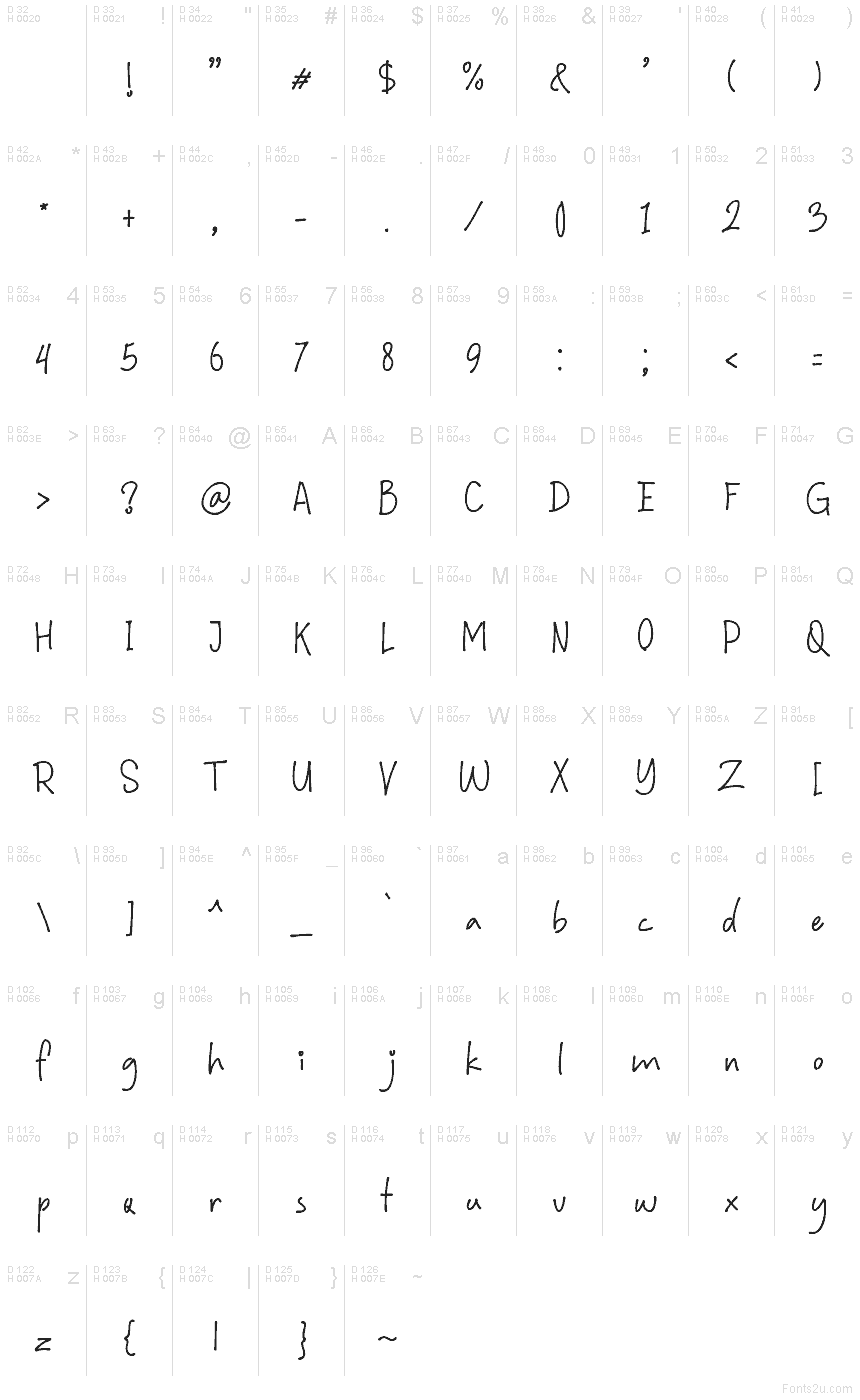
Wedding Moment font by Fontherapy is a free handwritten script typeface. Upright, breezy strokes give it that freshly penned feel-gentle bounce, tidy spacing, and soft curves that read clearly at invitation sizes. The ink-like line weight stays even, so names and dates look smooth rather than fussy, and the subtle quirks keep it warm and human.
Using Wedding Moment, your stationery flows with an effortless, modern-romantic tone. It shines on wedding invitations, save-the-dates, place cards, signage, bridal shower materials, and keepsake prints. This free font also works beautifully for brand marks on florists or event studios. For balance, pair it with a light, neutral sans for body text, and give headings a bit of breathing room to let the curves breathe.